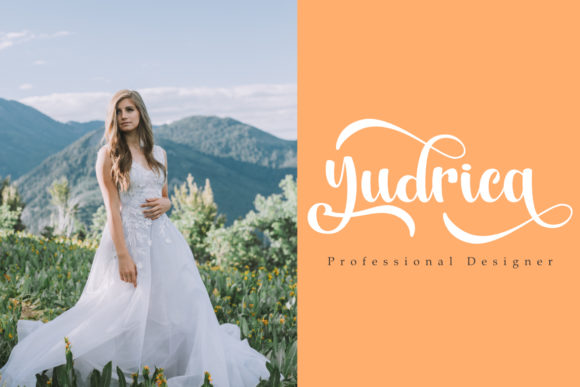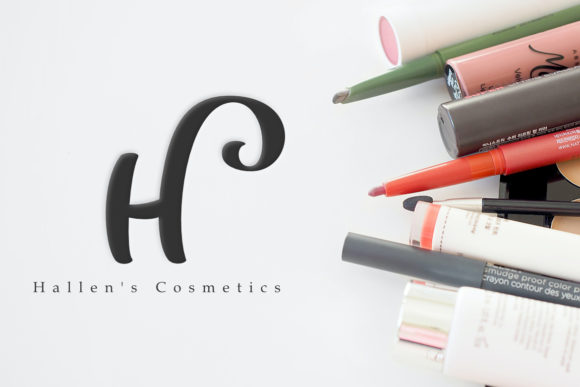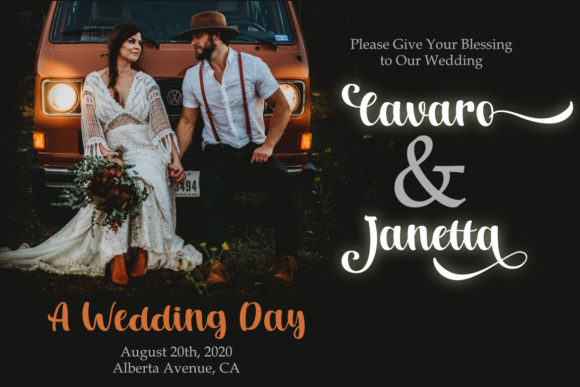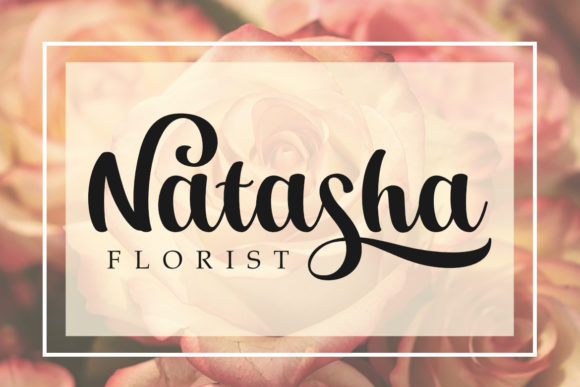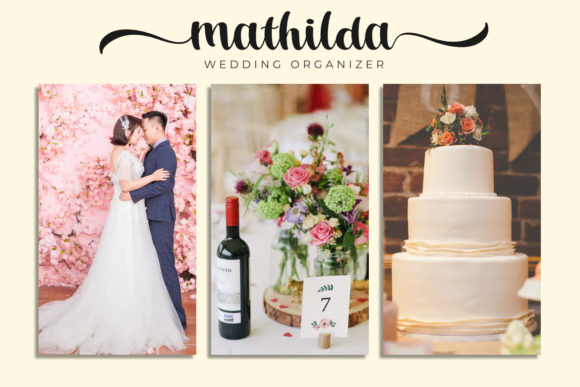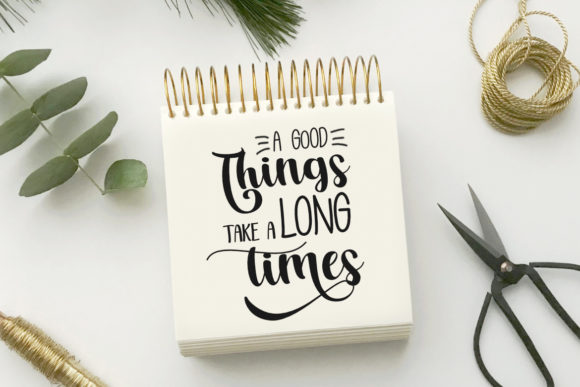
Ashburton Font: Elevate Your Designs with Elegance and Charm
In the world of typography, few fonts manage to strike a balance between charm and elegance as effortlessly as the Ashburton Font. This beautiful, handwritten font has captured the hearts of designers and crafters alike, and for good reason. With its unique blend of sophistication and whimsy, Ashburton Font is the perfect addition to any design project that calls for a touch of personality and refinement.
The Characteristics of Ashburton Font
Ashburton Font is a true gem in the realm of typography. It boasts a range of features that make it both versatile and visually appealing. One of its standout characteristics is its varying baseline, which gives it a delightfully organic and hand-crafted feel. The smooth lines and gorgeous glyphs add to its charm, making it a font that is as easy on the eyes as it is to work with.
What sets Ashburton Font apart from many other fonts is its PUA (Private Use Area) encoding. This means that users can access all of the glyphs and swashes with ease, allowing for a level of customization and creativity that is hard to find elsewhere. Whether you’re looking to add a personal touch to wedding invitations, craft unique logos, or simply want to experiment with different design elements, the PUA encoding of Ashburton Font makes it incredibly user-friendly.
The versatility of Ashburton Font is one of its most compelling features. It looks stunning on:
- Wedding invitations, adding a touch of romance and sophistication to your special day.
- Thank you cards, providing a gracious and elegant way to express your gratitude.
- Quotes, making inspirational and thought-provoking text even more impactful.
- Greeting cards, offering a charming and heartfelt way to connect with friends and family.
- Logos, giving businesses a unique and memorable brand identity.
- Business cards, helping professionals stand out in a crowded marketplace.
Essentially, any design project that could benefit from a handwritten touch will be elevated by the use of Ashburton Font.
Stunning Alternates for Added Creativity
Another feature that makes Ashburton Font so appealing is its stunning alternates. These provide users with even more options for customization, allowing for a level of creativity and flexibility that is essential for designers and crafters looking to bring their unique vision to life. Whether you’re looking to create a cohesive brand identity or simply want to experiment with different design elements, the alternates in Ashburton Font offer a wealth of possibilities.
Why Designers and Crafters Love Ashburton Font
Designers and crafters are drawn to Ashburton Font for a variety of reasons. Its elegant and charming aesthetic makes it a go-to choice for projects that require a touch of sophistication. The font’s versatility, thanks to its PUA encoding and range of alternates, means that it can be used in a wide array of design applications. Additionally, the smooth lines and beautiful glyphs of Ashburton Font ensure that it is as visually appealing as it is functional.
Ashburton Font is a truly exceptional addition to any designer’s or crafter’s toolkit. Its unique blend of charm, elegance, and versatility makes it the perfect choice for a wide range of projects. Whether you’re creating wedding invitations, designing logos, or crafting greeting cards, Ashburton Font is sure to bring a level of sophistication and personality to your work. With its PUA encoding, smooth lines, gorgeous glyphs, and stunning alternates, Ashburton Font is a font that will inspire creativity and elevate designs.
In conclusion, if you’re looking for a font that feels equally charming and elegant, look no further than Ashburton Font. Its beautiful aesthetic and user-friendly features make it an indispensable resource for anyone looking to add a touch of elegance and whimsy to their designs.